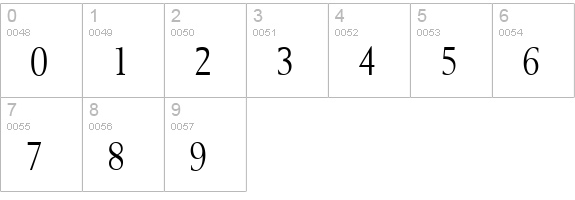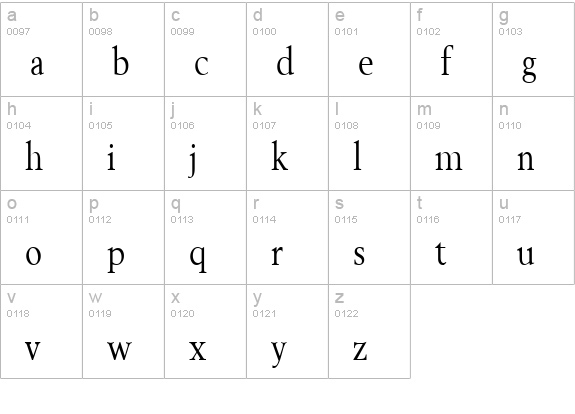
Revive 8 Condensed Normal Font Details
Revive 8 Condensed Normal is the standard, neutral, condensed-width variant in the Revive typeface family \xE2\x80\x94 well suited to general body text, paragraphs, and standard typographic work.
Revive 8 Condensed Normal font is a stunning typeface that exudes elegance and sophistication. Its sleek and slender design makes it perfect for creating eye-catching headlines, logos, and other creative projects. The condensed structure of the font allows for maximum space utilization, making it a great choice for designs where every inch counts. With its clean lines and balanced proportions, Revive 8 Condensed Normal font adds a touch of modernity to any design. Whether you're working on a magazine layout, a website, or a branding project, this font is sure to make a lasting impression. One of the best things about Revive 8 Condensed Normal font is that it is freely available to download at FontsMarket.com. This means you can easily access this font and use it in your personal and commercial projects without any restrictions. It's a fantastic opportunity for designers and creatives to add a touch of sophistication to their work without having to spend a dime. So why wait? Take advantage of this amazing font and elevate your designs to new heights. Download Revive 8 Condensed Normal font today and let your creativity soar.